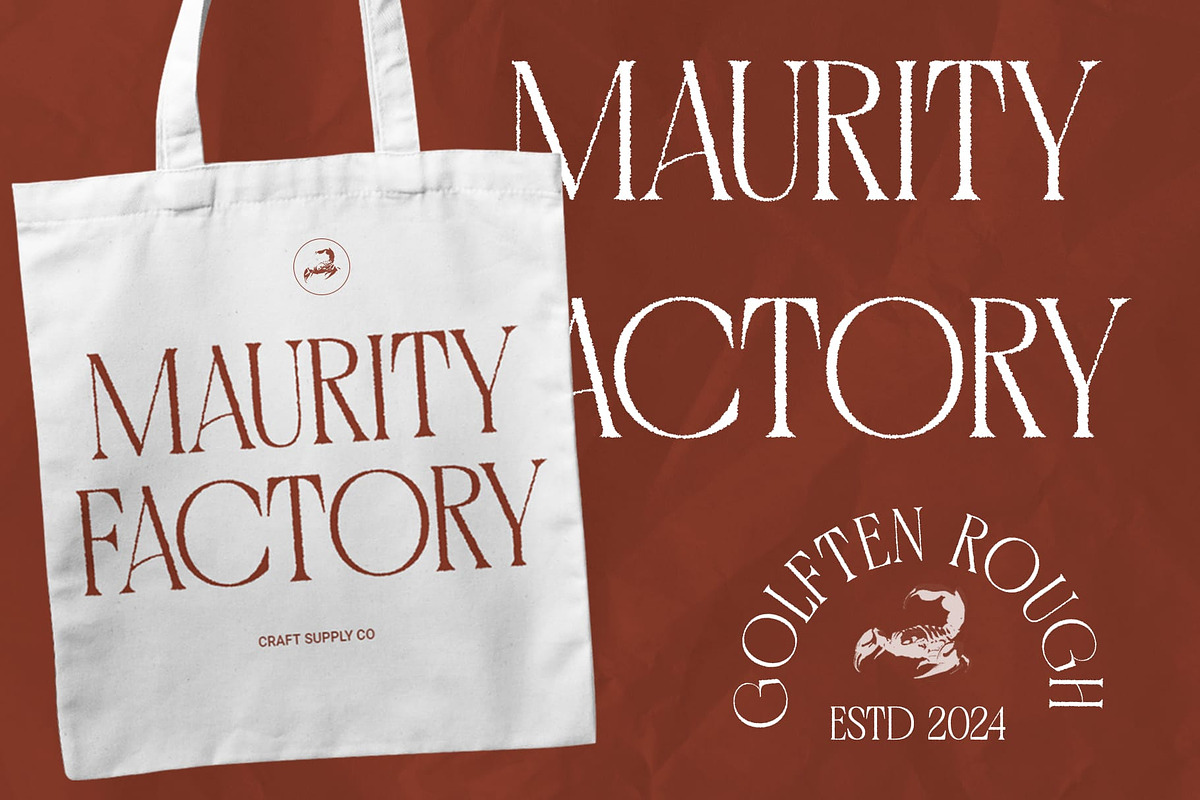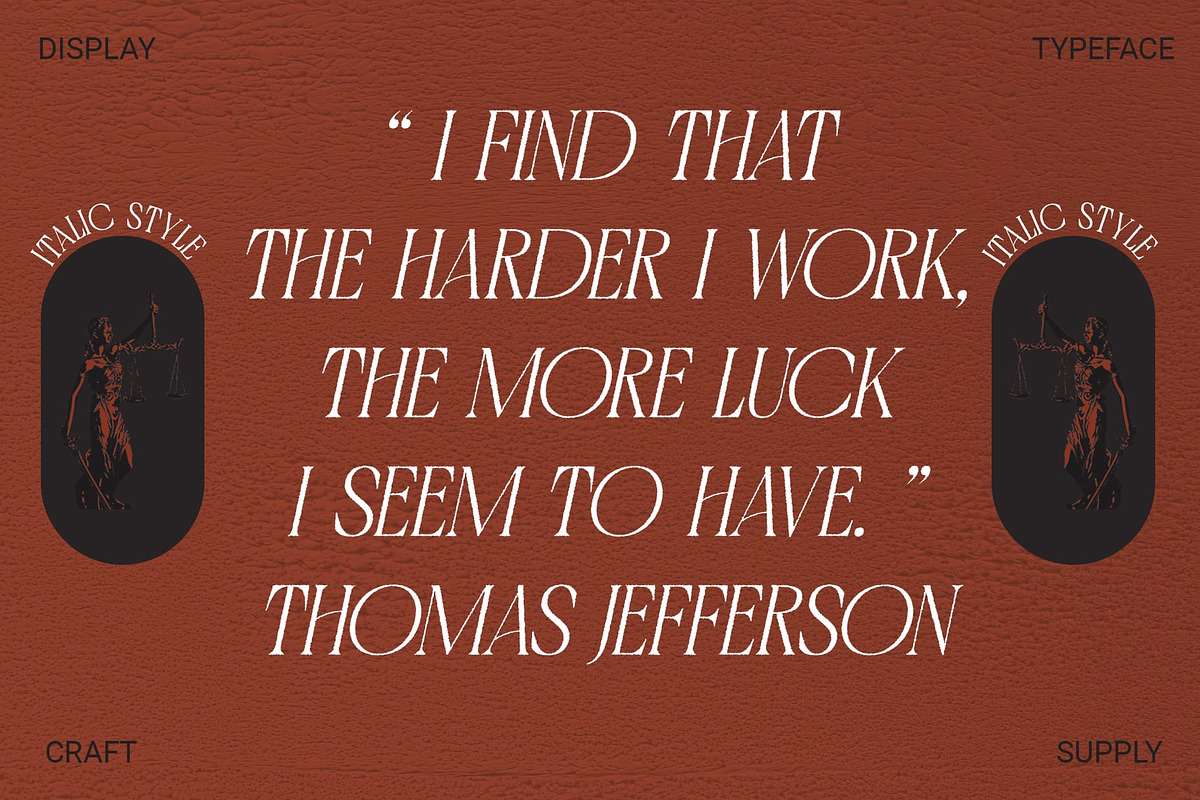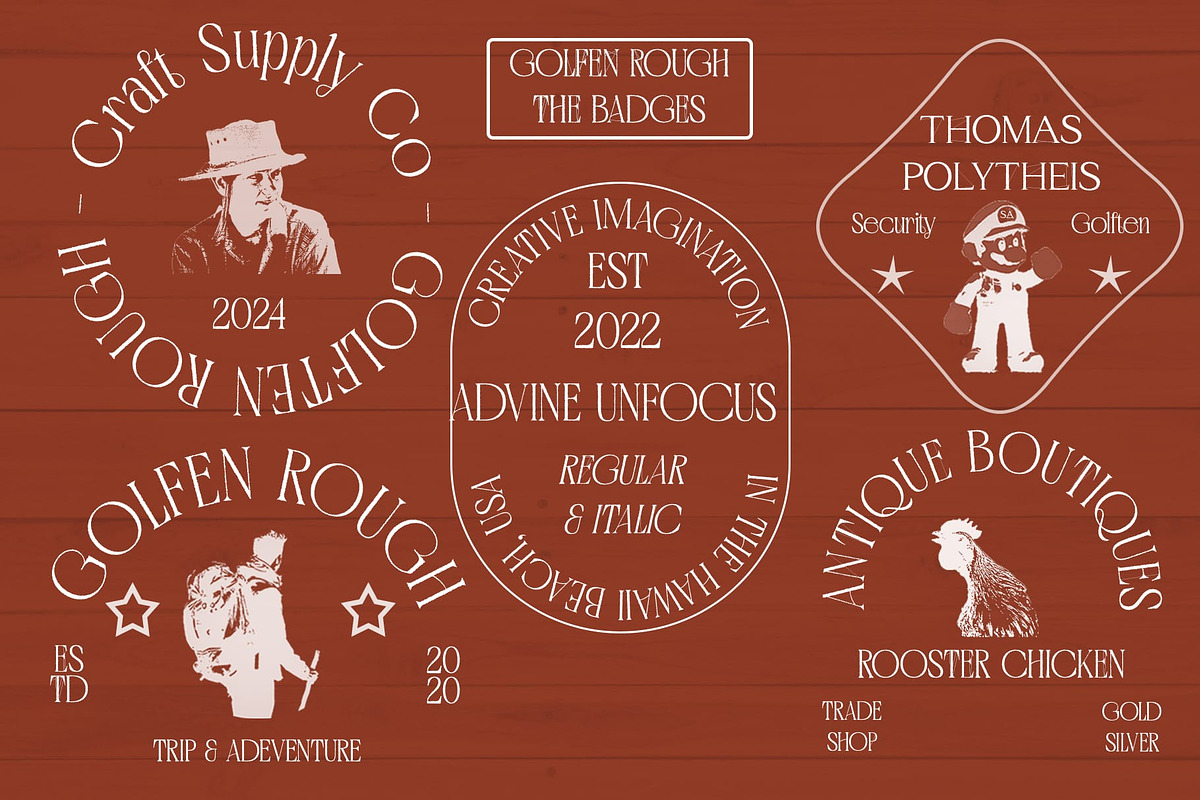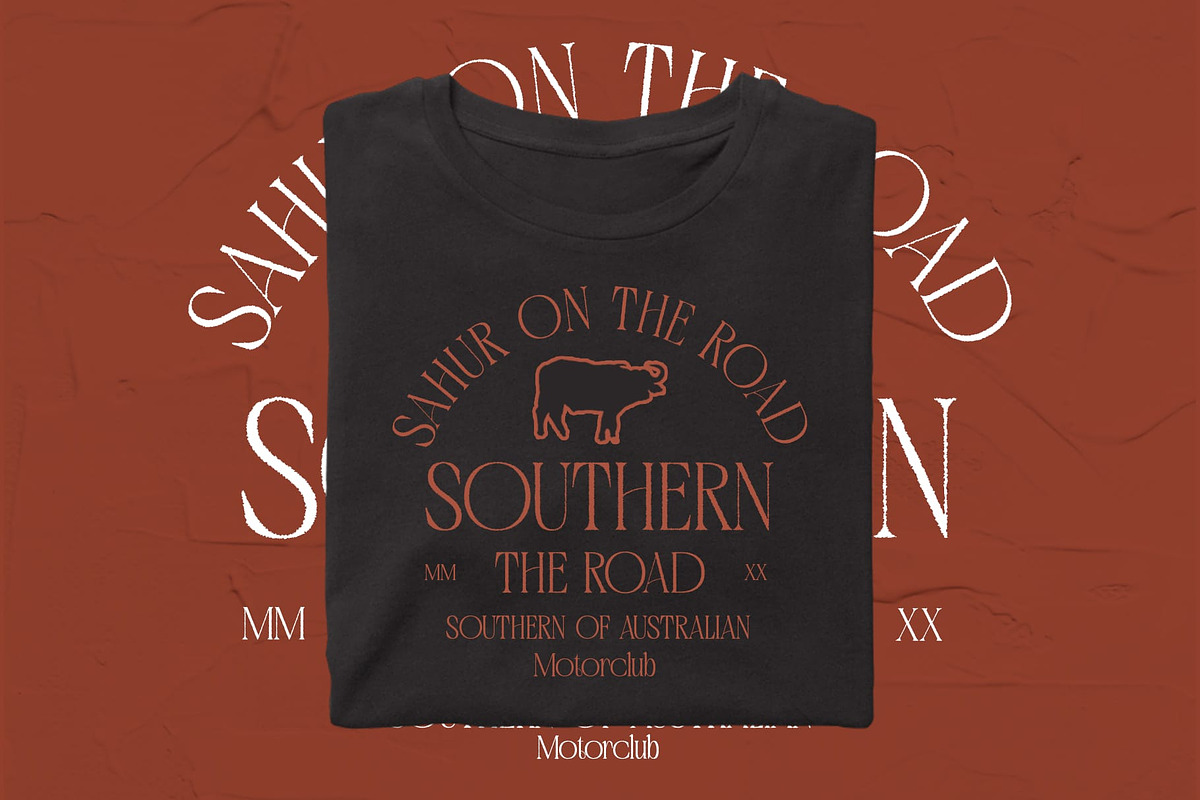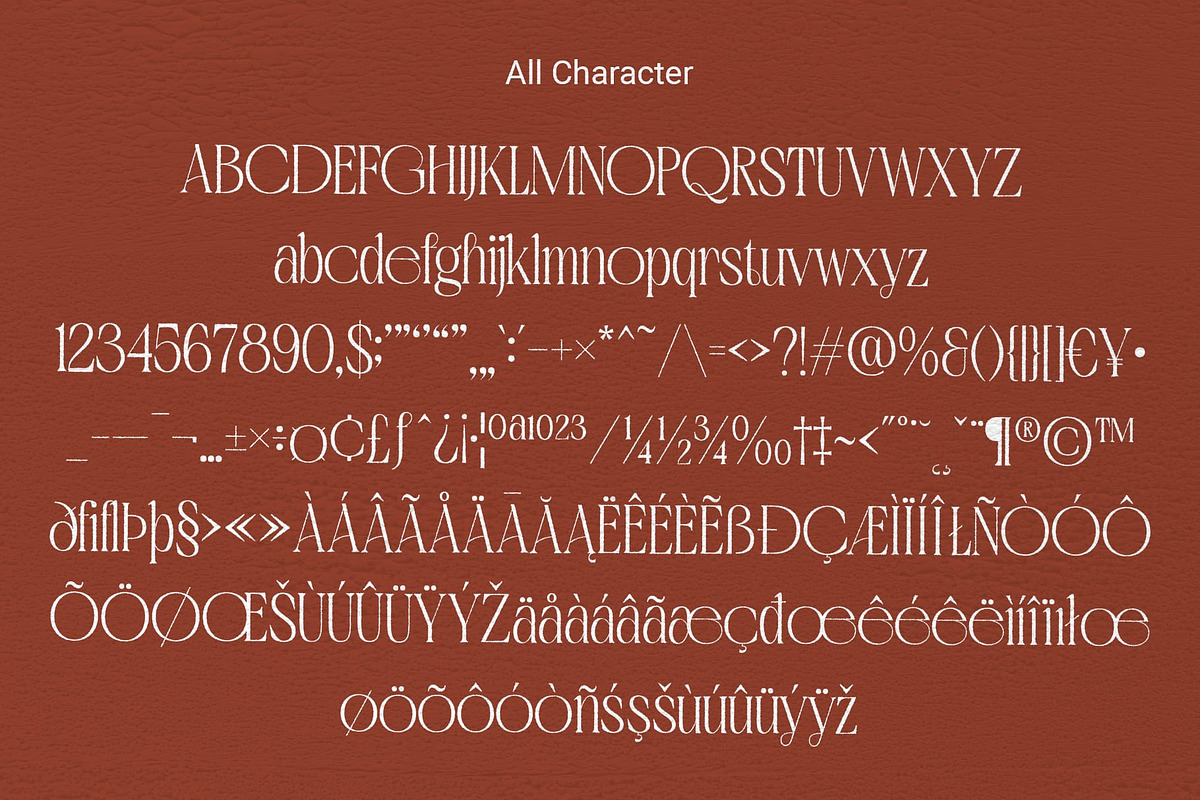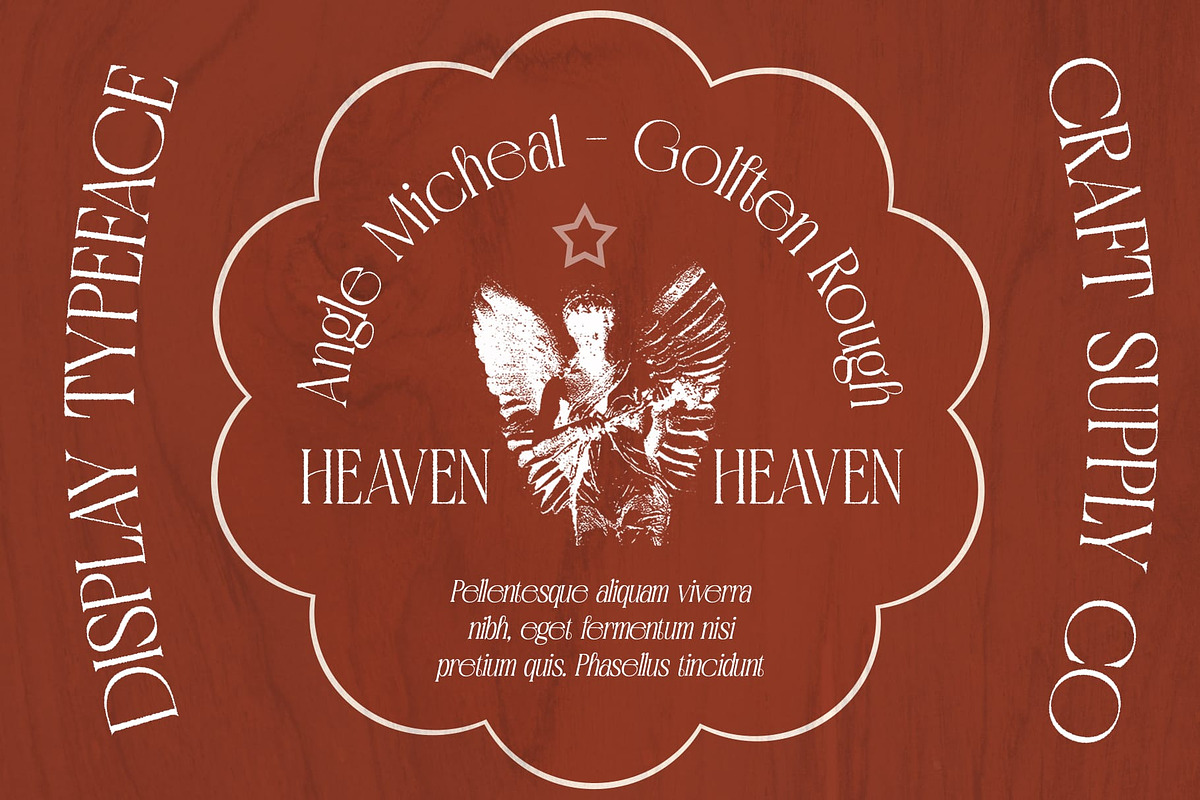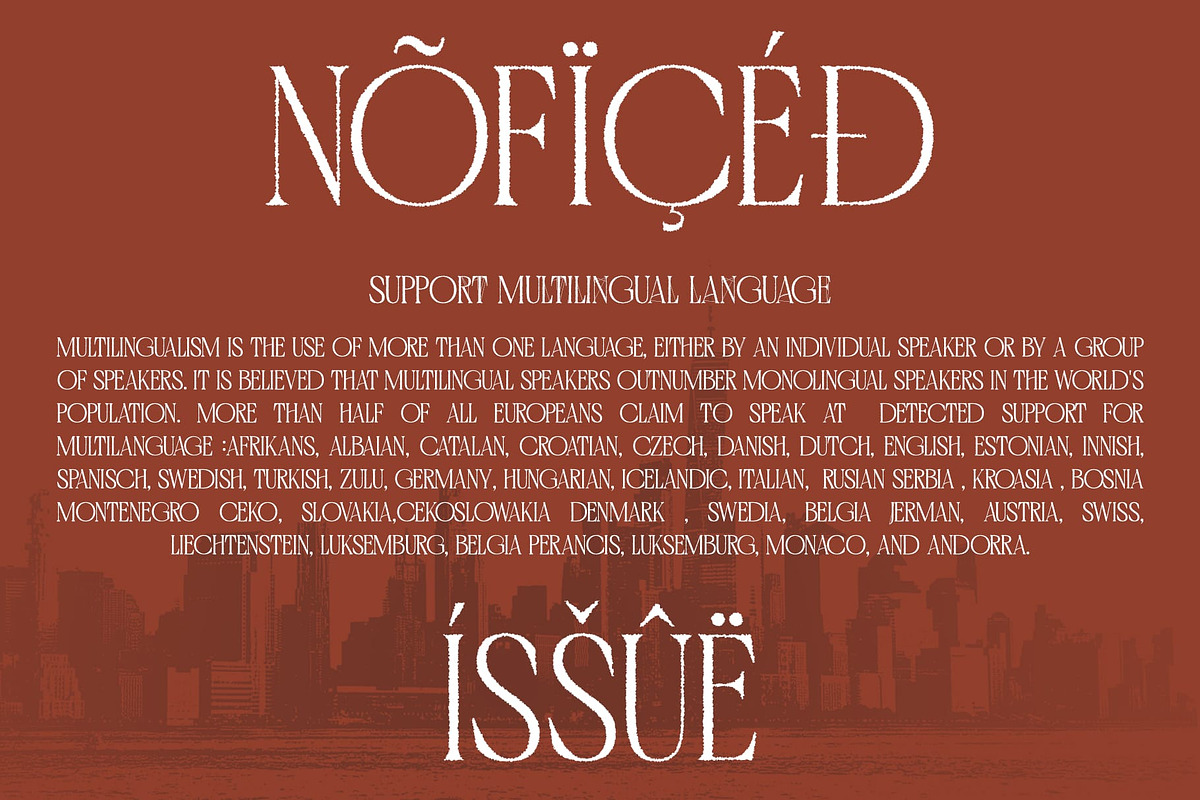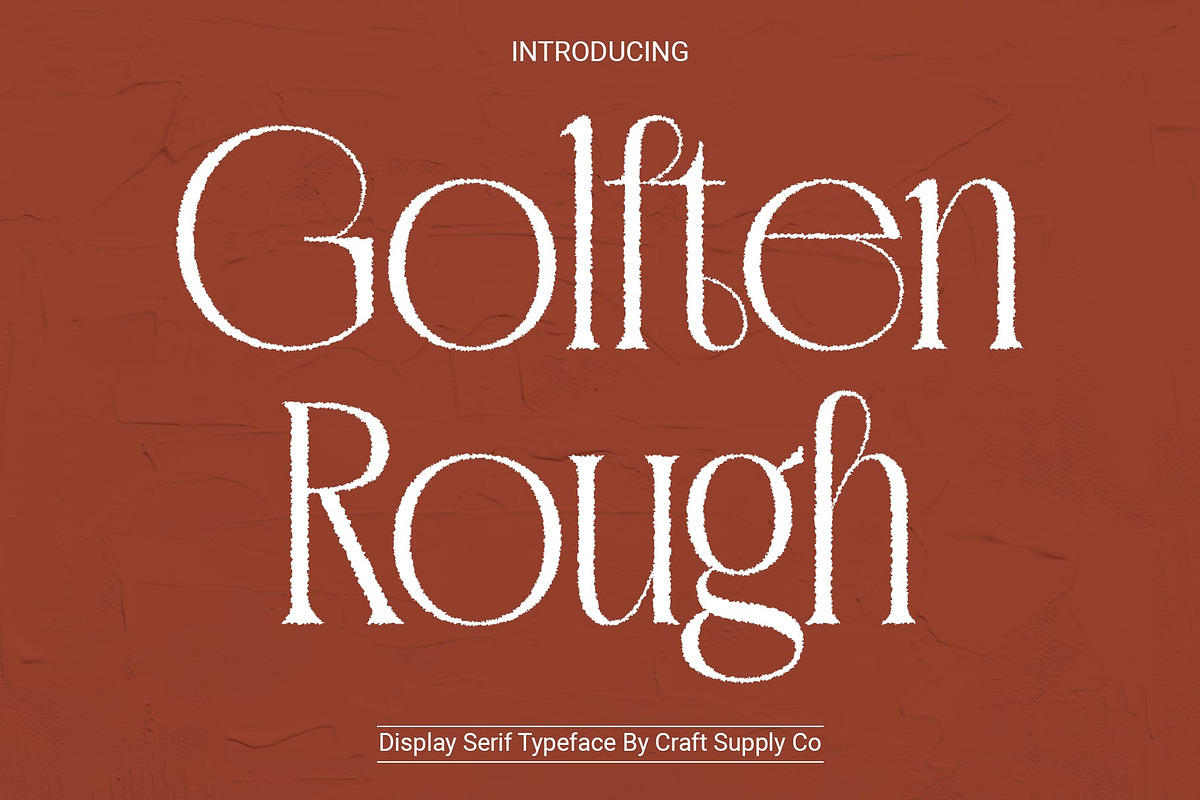
Golften rough
Golften Rough: A Tribute to Art Nouveau
Inspired by Nature Golften Rough draws inspiration from the organic forms of Art Nouveau, resembling botanical motifs. Its serif shapes evoke the delicate curves and intricate details found in natural foliage.
Serif Elegance with Art Nouveau Flair Combining classic serif elements with Art Nouveau aesthetics, This font exudes elegance with a touch of whimsy. Its flowing lines and ornate details capture the essence of this artistic movement.
Perfect for Display Tailored for display purposes, This font shines in various applications, from posters to packaging. Its unique blend of serif design and Art Nouveau influences ensures eye-catching visuals that demand attention.
Versatile and Expressive Beyond its decorative appearance, This font offers versatility in expression. Whether used in branding, editorial layouts, or digital designs, its rough texture adds character and charm to any project.
Botanical Beauty This font emerges as a captivating serif font inspired by the organic forms of Art Nouveau. With its rough texture and botanical-inspired shapes, it brings a touch of nature’s beauty to display typography, offering elegance and expressiveness in equal measure. Step into the enchanting world of This font and let your designs flourish with artistic flair.
- Golften Rough Regular
- Golften Rough Italic